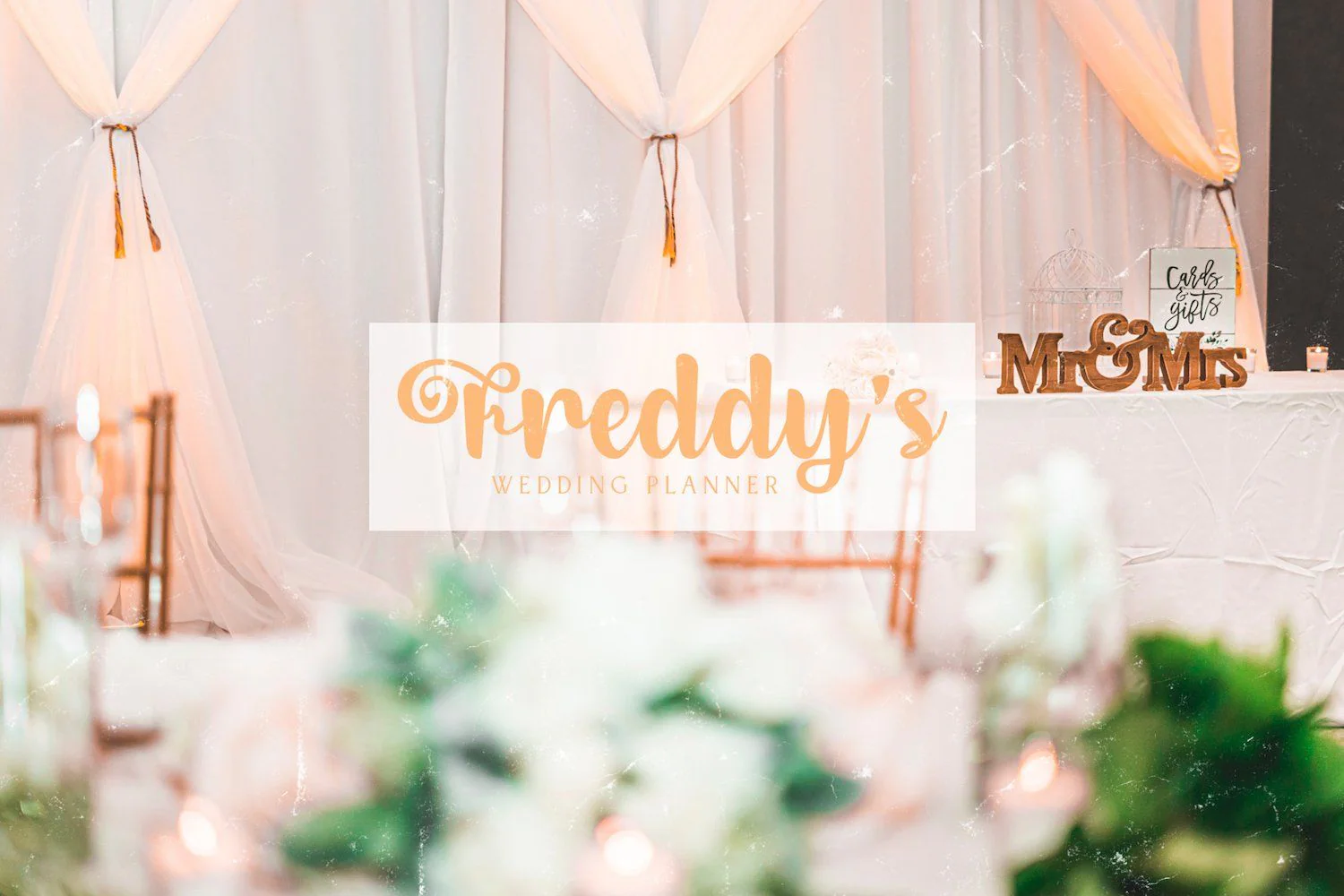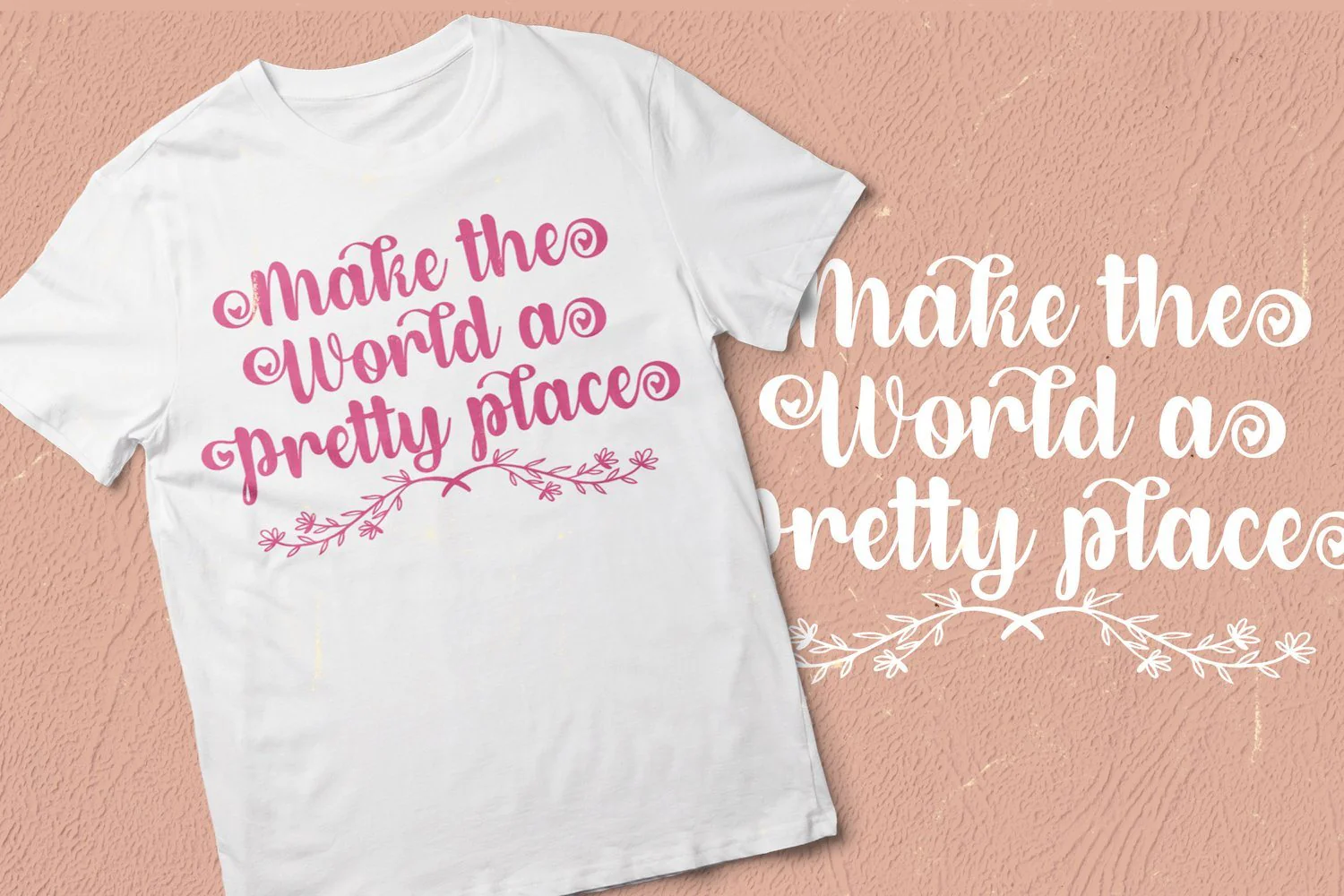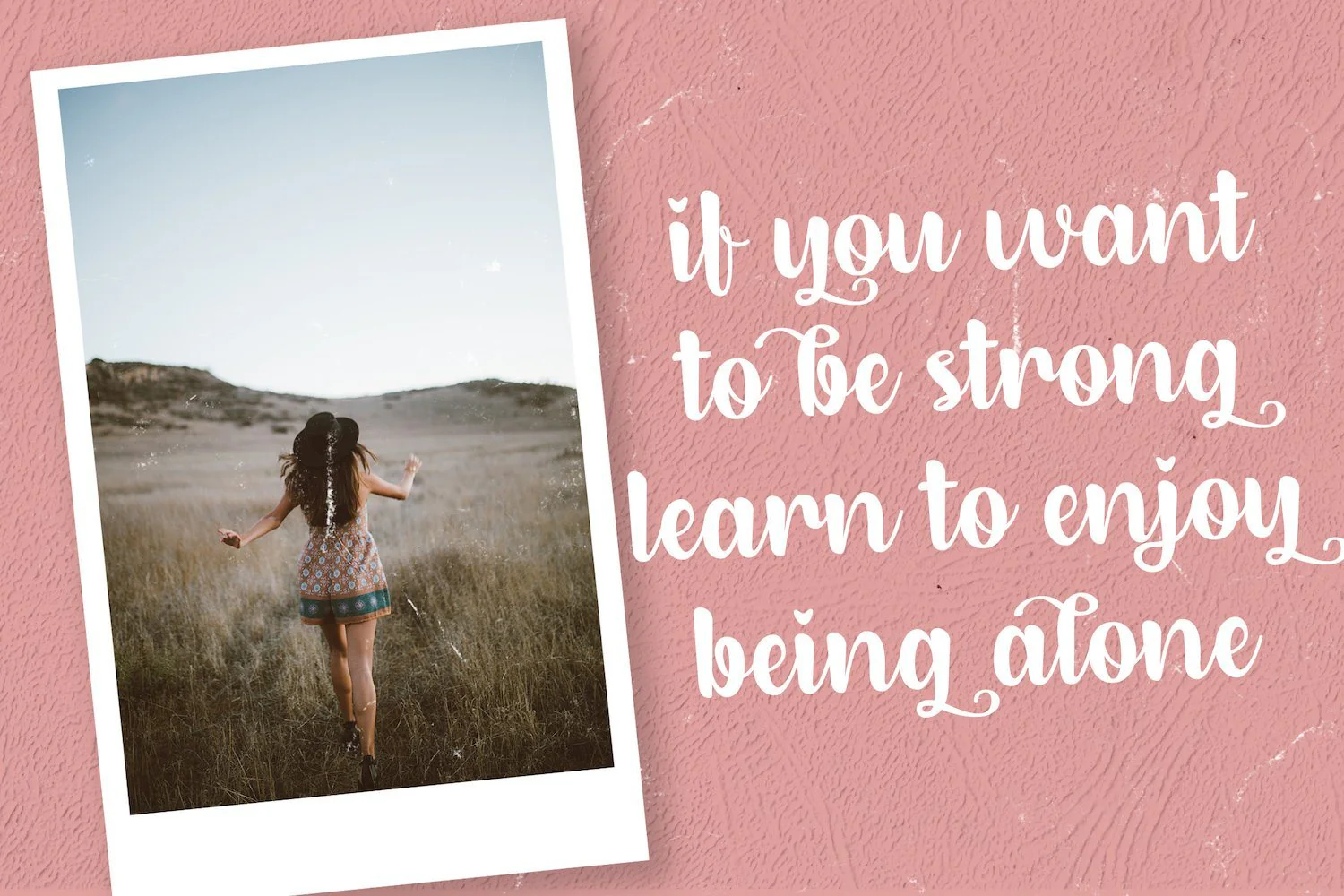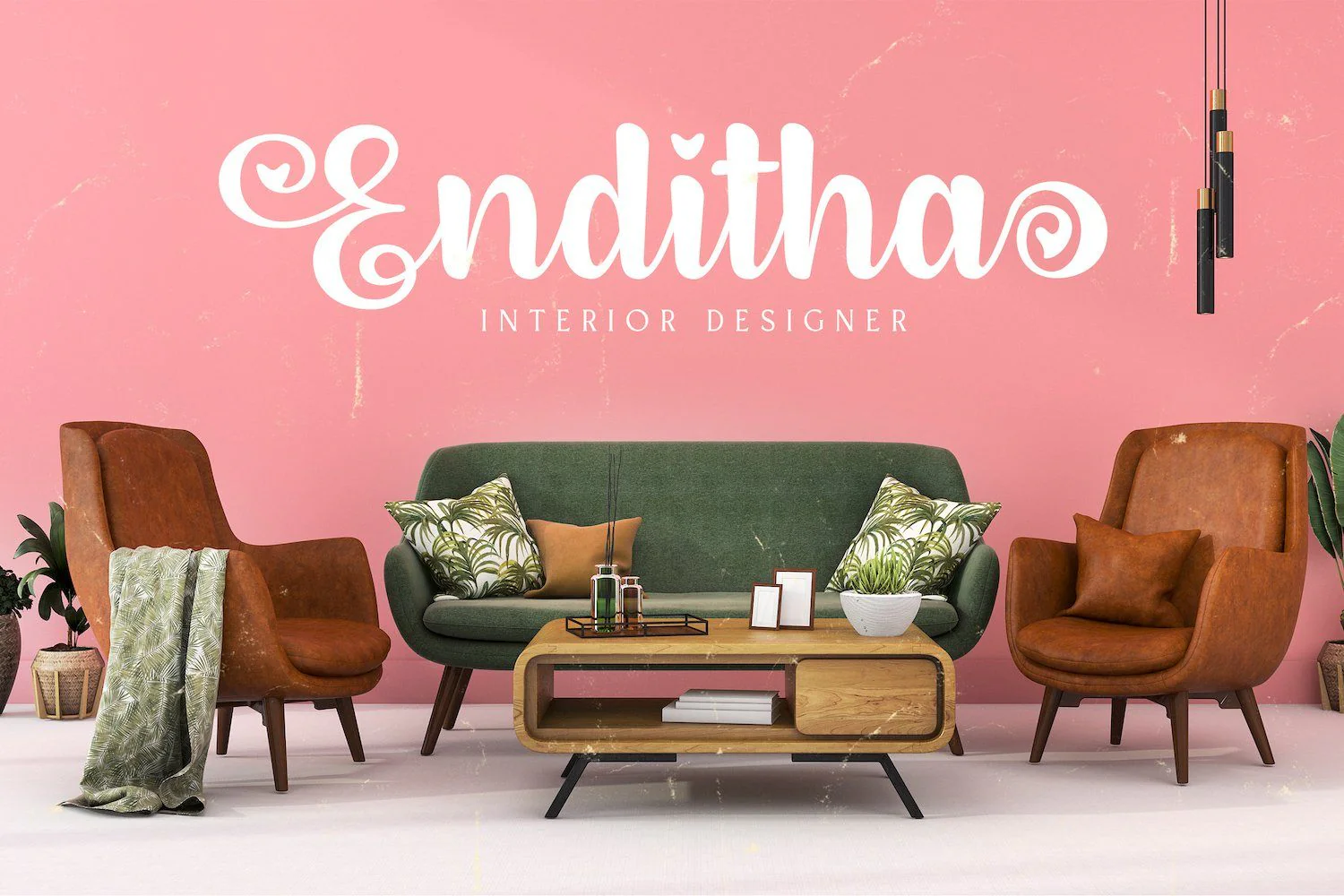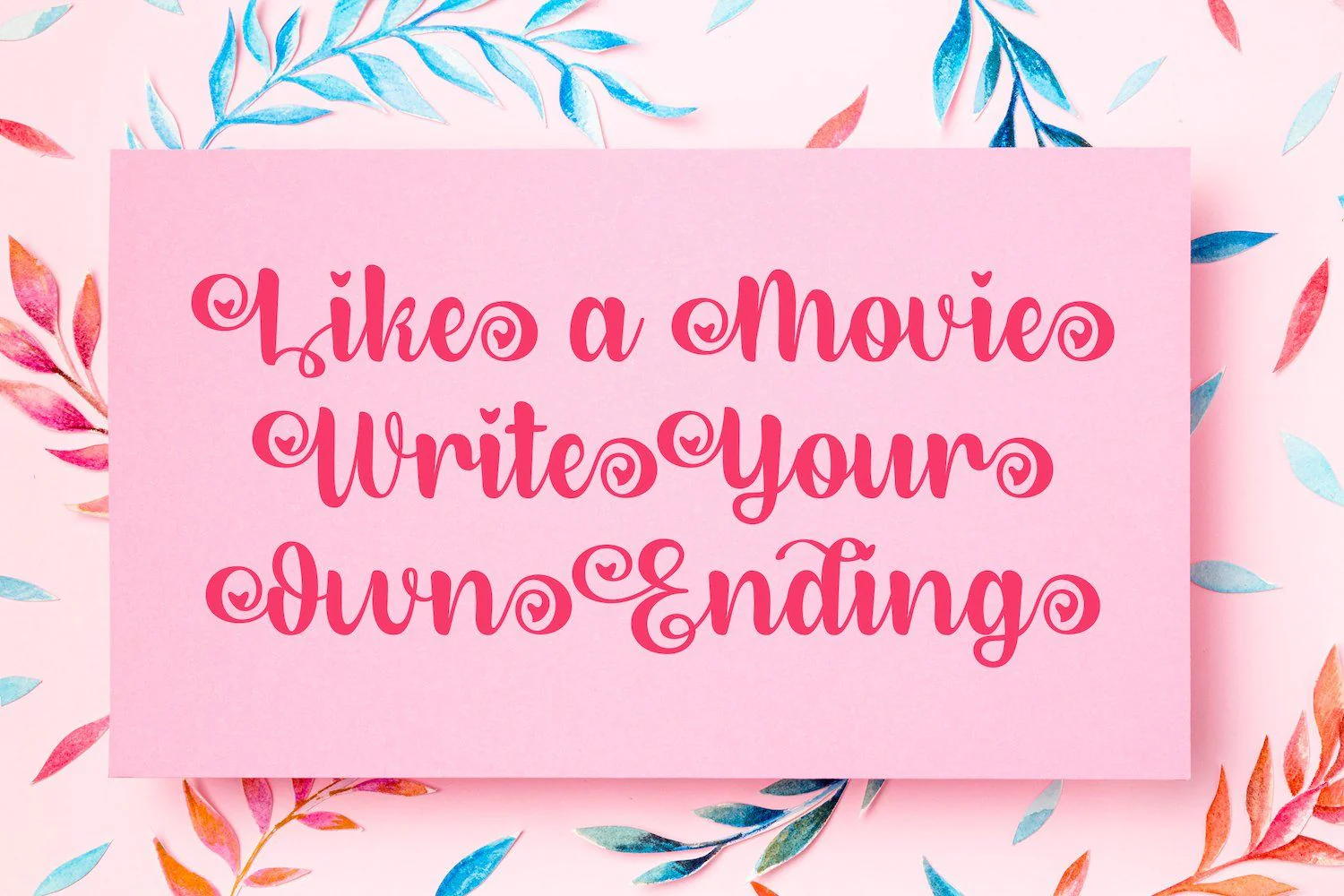
Dirly Belly - Lovely Calligraphy Font
Introducing Dirly Belly - Lovely Calligraphy Font
Dirly Belly is an exquisite handwritten font, masterfully designed to become a true favorite. It maintains its classy calligraphic influences while feeling contemporary and fresh. Fall in love with it and bring your projects to the highest levels!